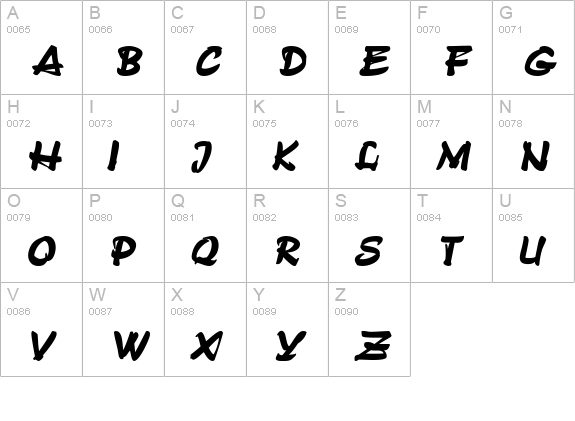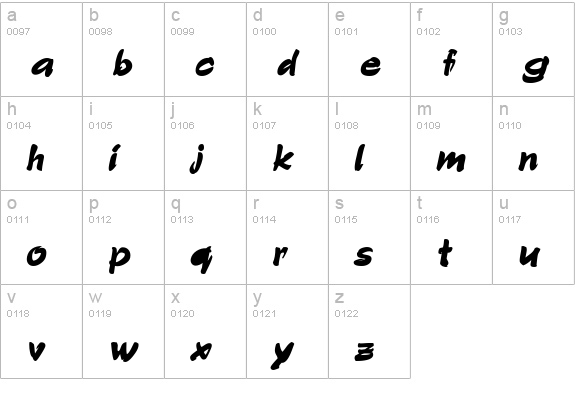
GrunionScript Bold Italic Font Details
GrunionScript Bold Italic is a strong, high-contrast, italic variant in the GrunionScript typeface family \xE2\x80\x94 well suited to headlines, attention-grabbing titles, and strong calls-to-action.
GrunionScript Bold Italic font is a striking and elegant typeface that exudes sophistication and charm. With its unique blend of boldness and graceful italics, this font is perfect for adding a touch of flair to any design project. Whether you're creating invitations, posters, or branding materials, GrunionScript Bold Italic font will make your text stand out beautifully. Best of all, GrunionScript Bold Italic font is available for free download at FontsMarket.com. This means you can easily access and use this stunning font in your projects without any cost. Don't miss out on the opportunity to enhance your designs with the timeless appeal of GrunionScript Bold Italic font. Download it today and elevate your typography game!